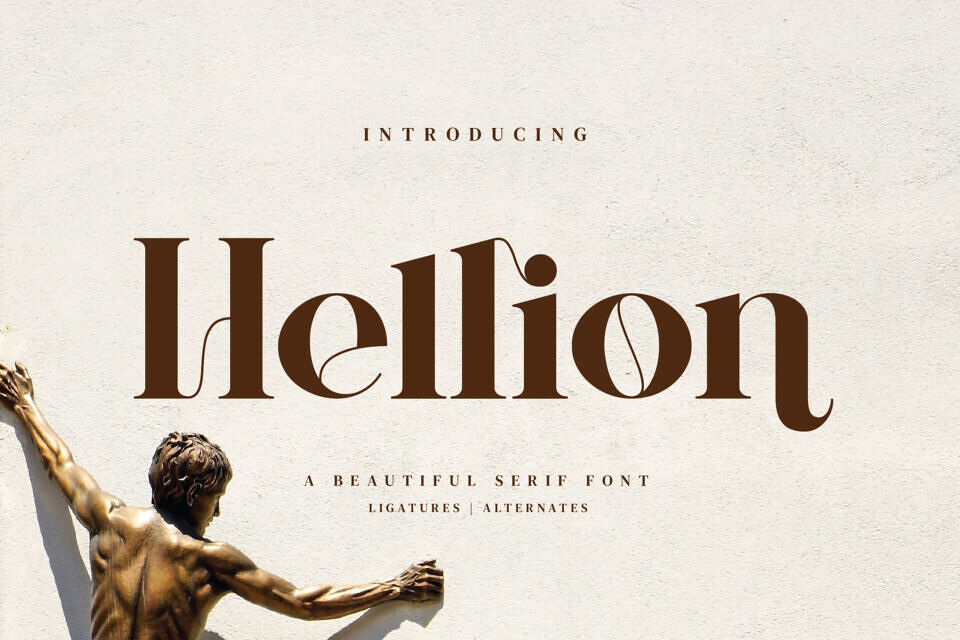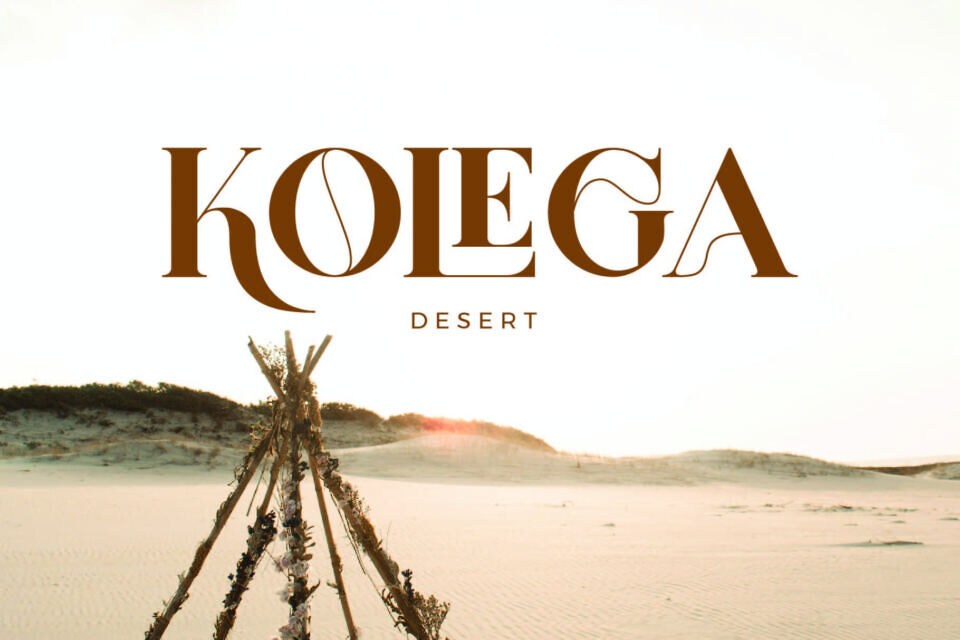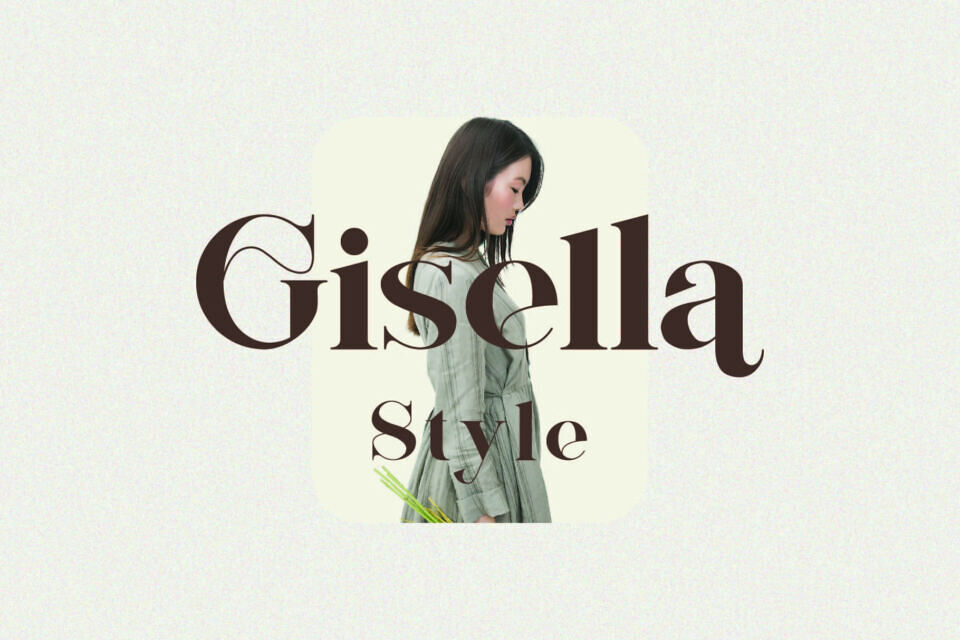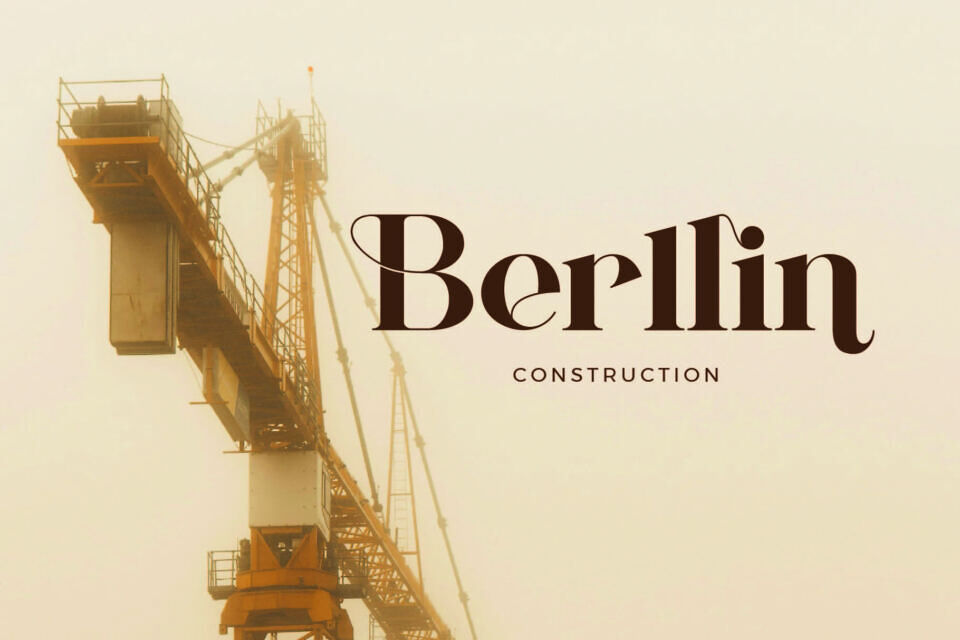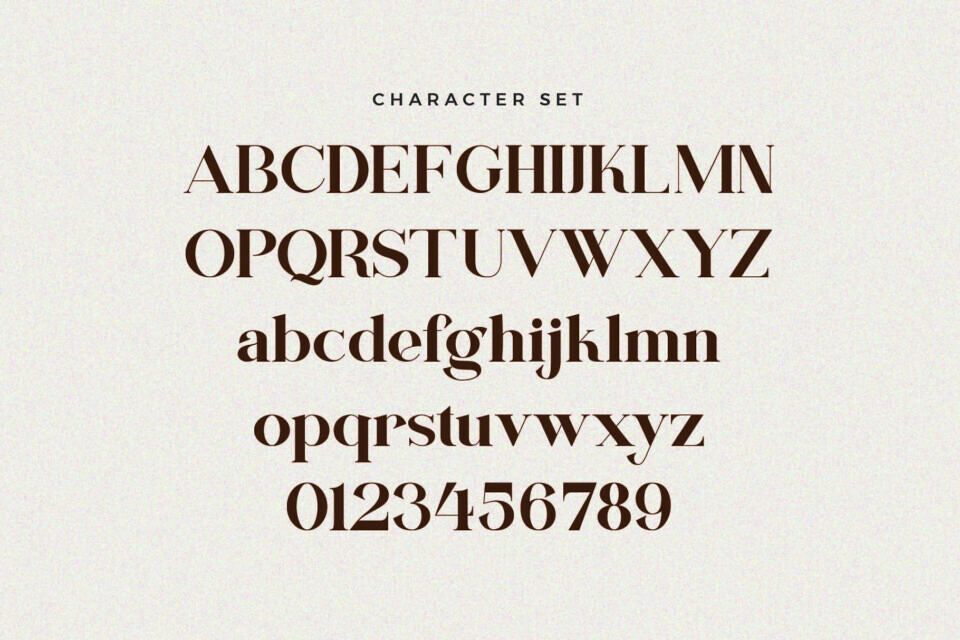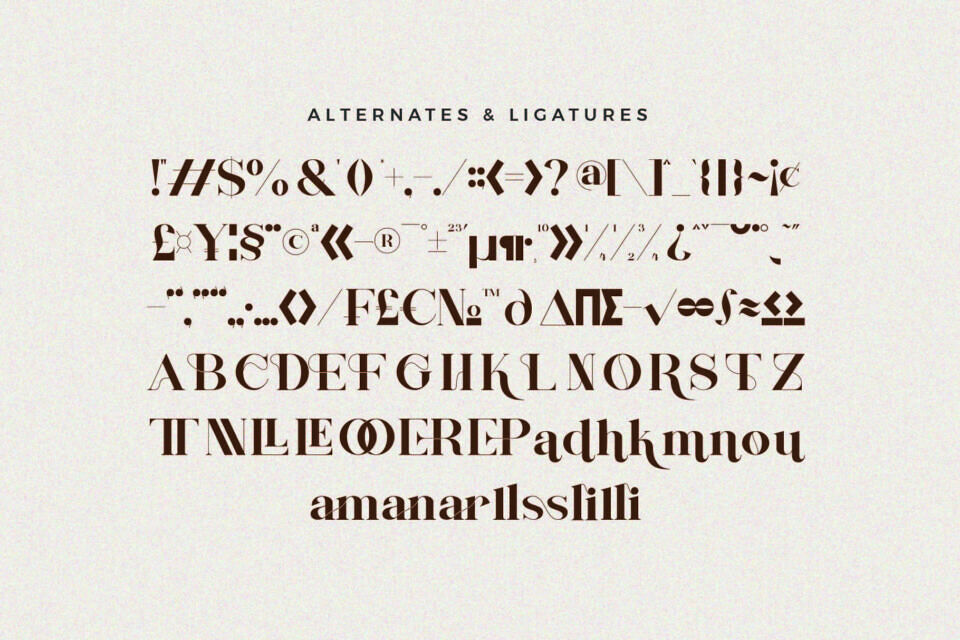
Hellion Font
Hellion is a sleek, modern font inspired by minimalist design. Its stylish ligatures make it ideal for creating visually appealing templates, brochures, videos, and advertisements, as well as logos and branding materials.